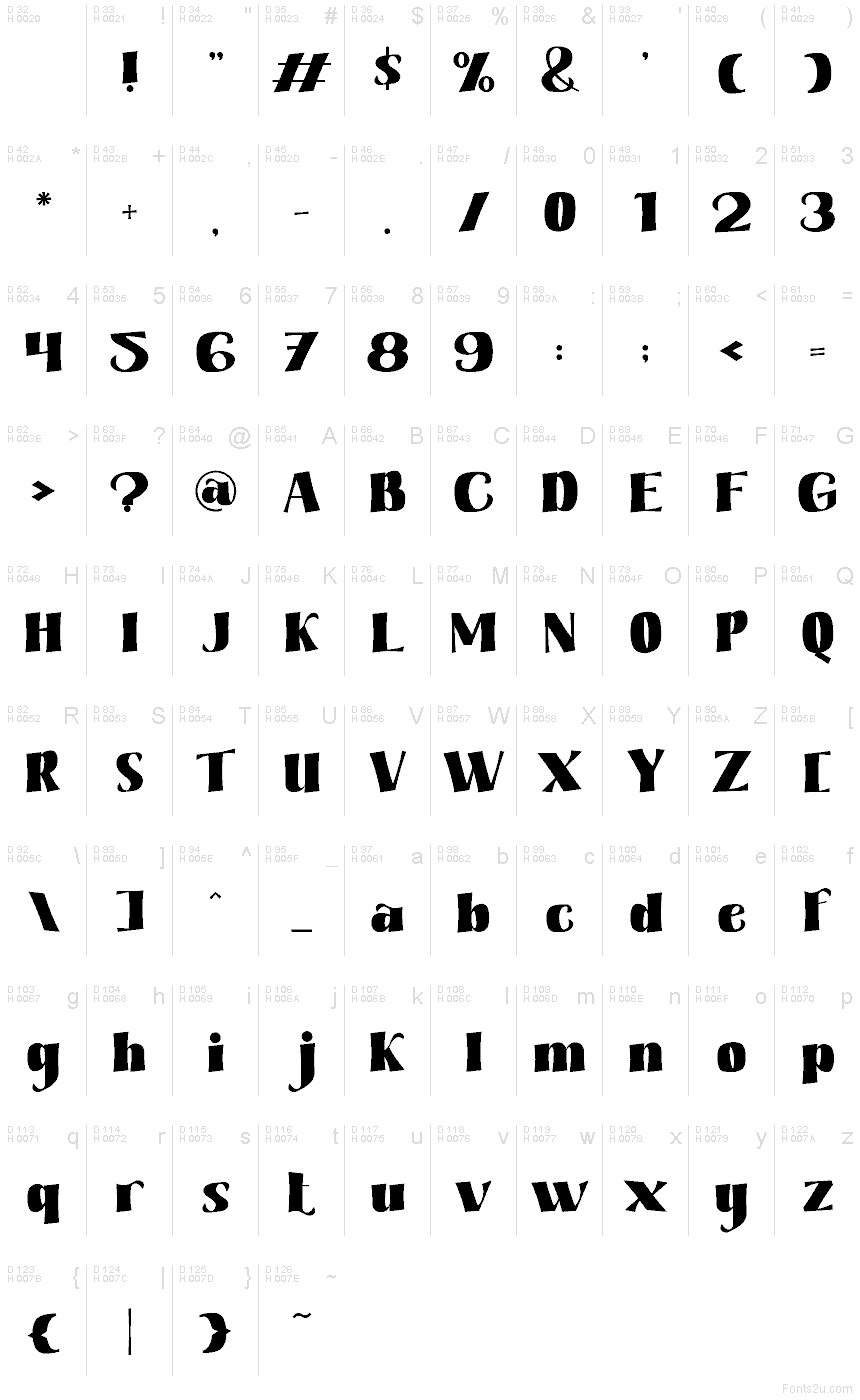
Lilard
Lilard font by PutraCetol Studio is a free decorative display typeface with a bold, hand-cut swagger. Its chunky forms wobble just enough to feel human—like letters snipped from inky paper—while the soft curves and quirky tilt give every word a little bounce. The rhythm is lively but readable, with stout stems and playful serifs that hold together even in tight compositions.
Using Lilard, headlines feel loud and friendly at once. This free font shines on posters, craft packaging, festival titles, kids’ book covers, café menus, stickers, and social posts. Set it big with a touch of extra letterspacing to let the shapes breathe. Pair with a simple, neutral sans to keep the message crisp while Lilard supplies the character.